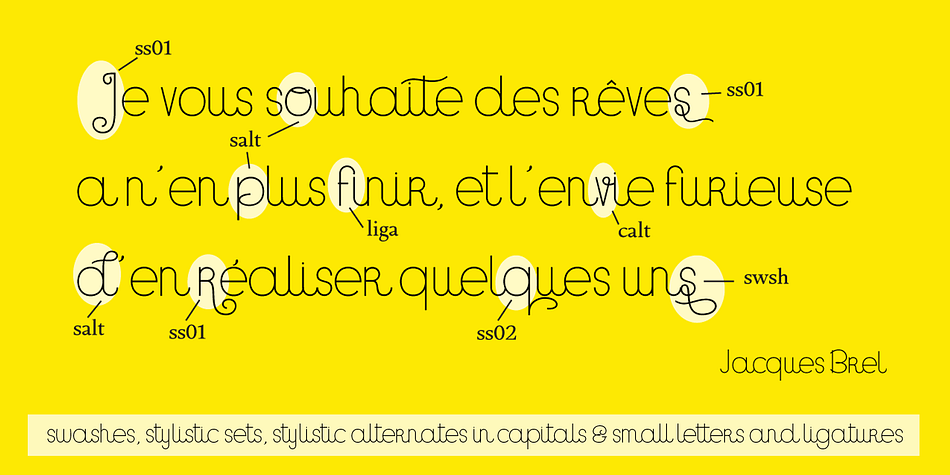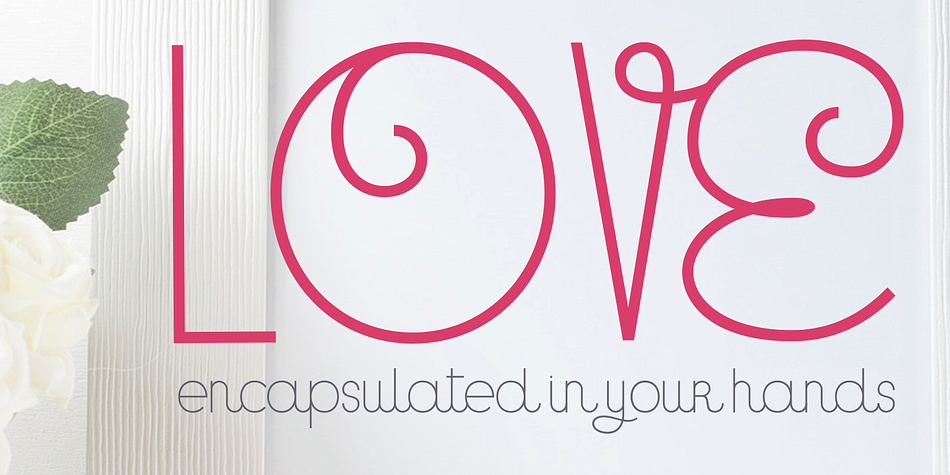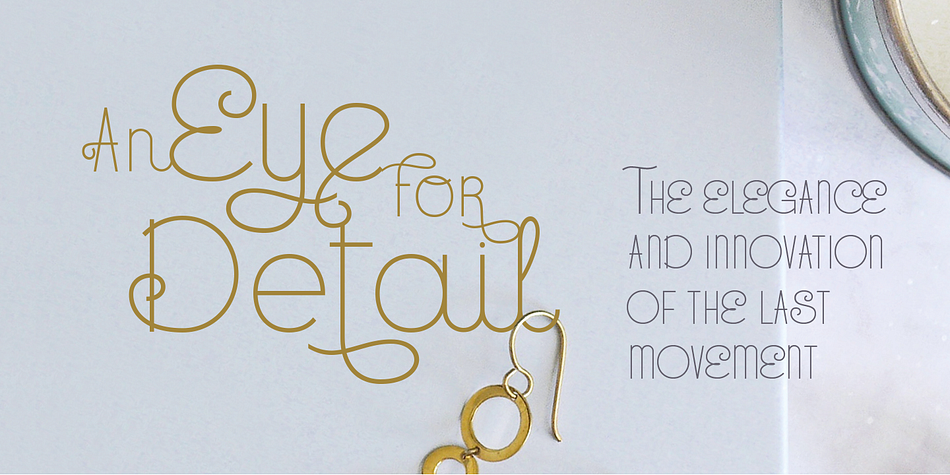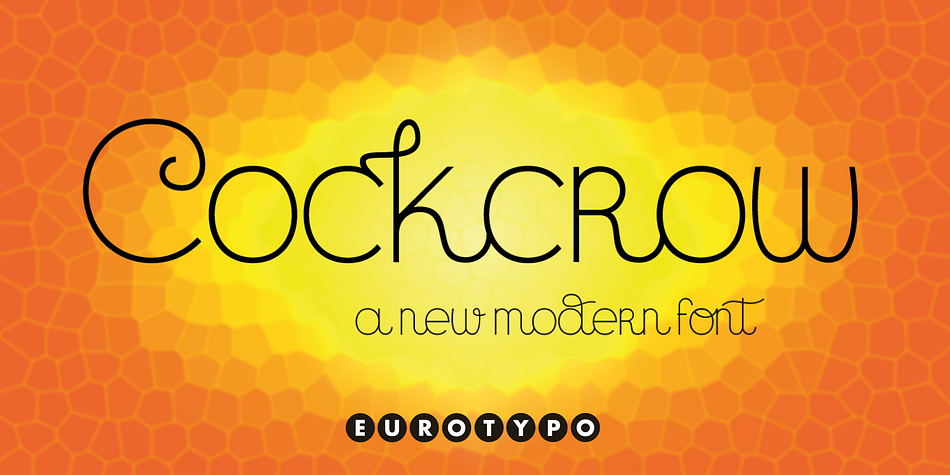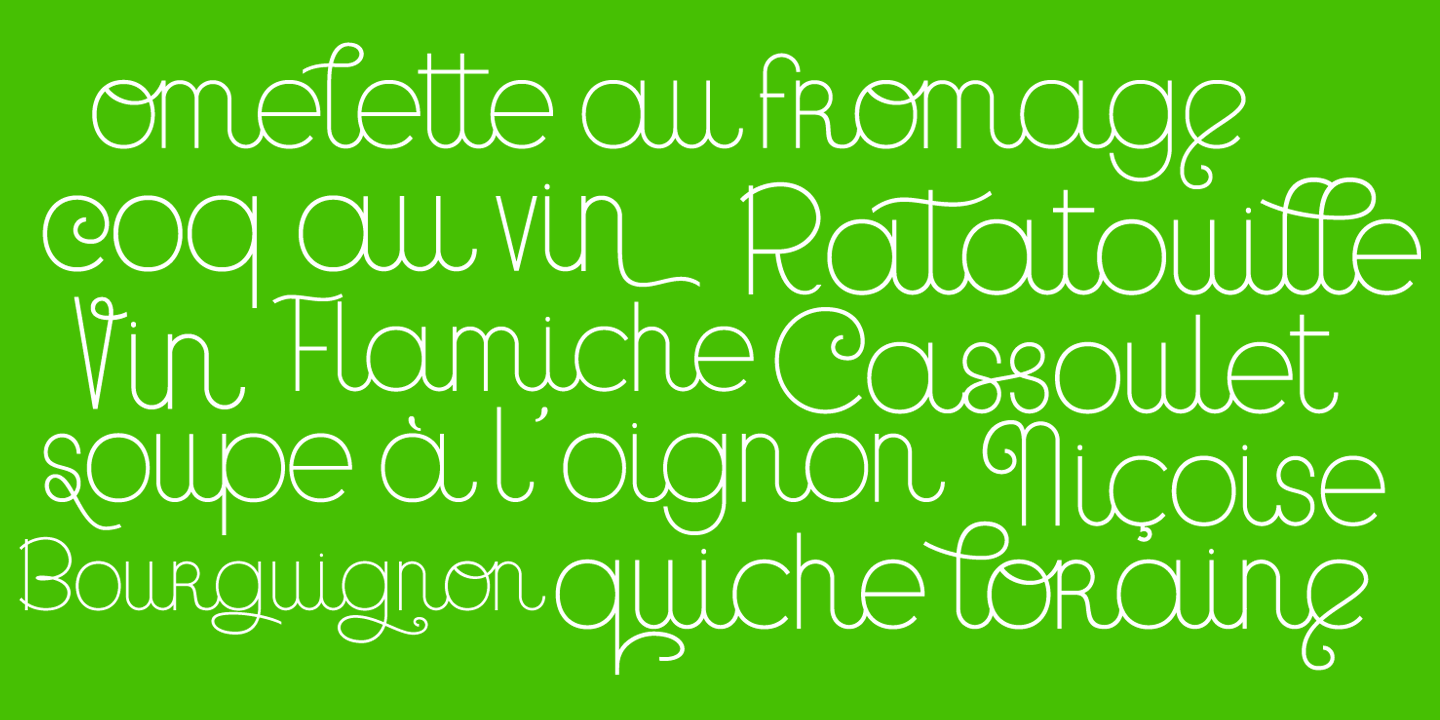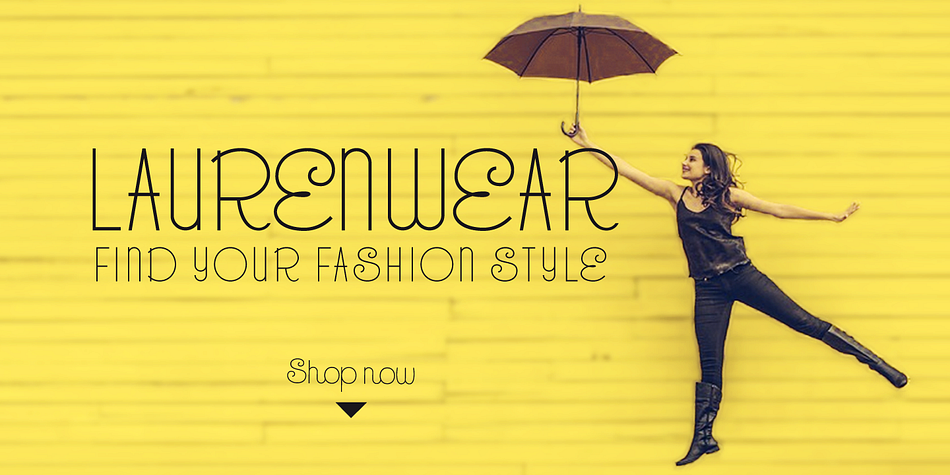
Designed by Carine de Wandeleer, Cockcrow is a display sans, hand display and script font family published by Eurotypo.
Cockcrow is a new geometric sans with modern proportions and a simple yet appealing personality resulting in a modernist, neutral and friendly typeface.
Take advantage of Cockcrow’s extended OpenType features including such as swashes, stylistic sets, stylistic and contextual alternates in capitals & small letters, and ligatures that allow you to mix and match pairs of letters. This will help your creativity and make it easier to make expressive and elegant your typographic work. In addition, it contains a Central European language support to fit your design. With Cockcrow you can also write all in capitals.
Cockcrow looks lovely on wedding invitations, greeting cards, logos, posters, labels, logos, business-cards, fashion, magazines, food packaging and menus, book covers and whatever your imagination holds!
Cockcrow was made to make your project more beautiful and attractive.